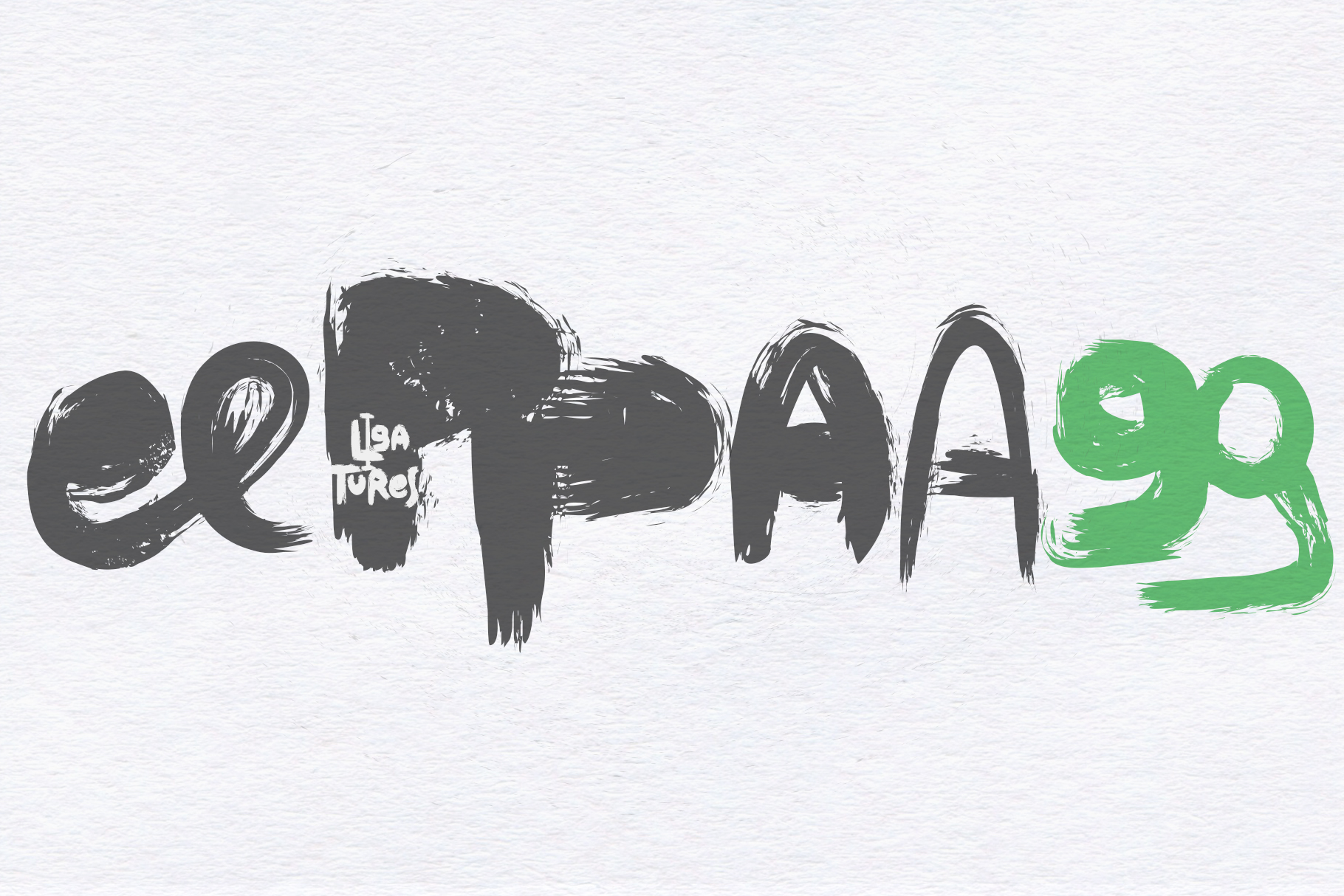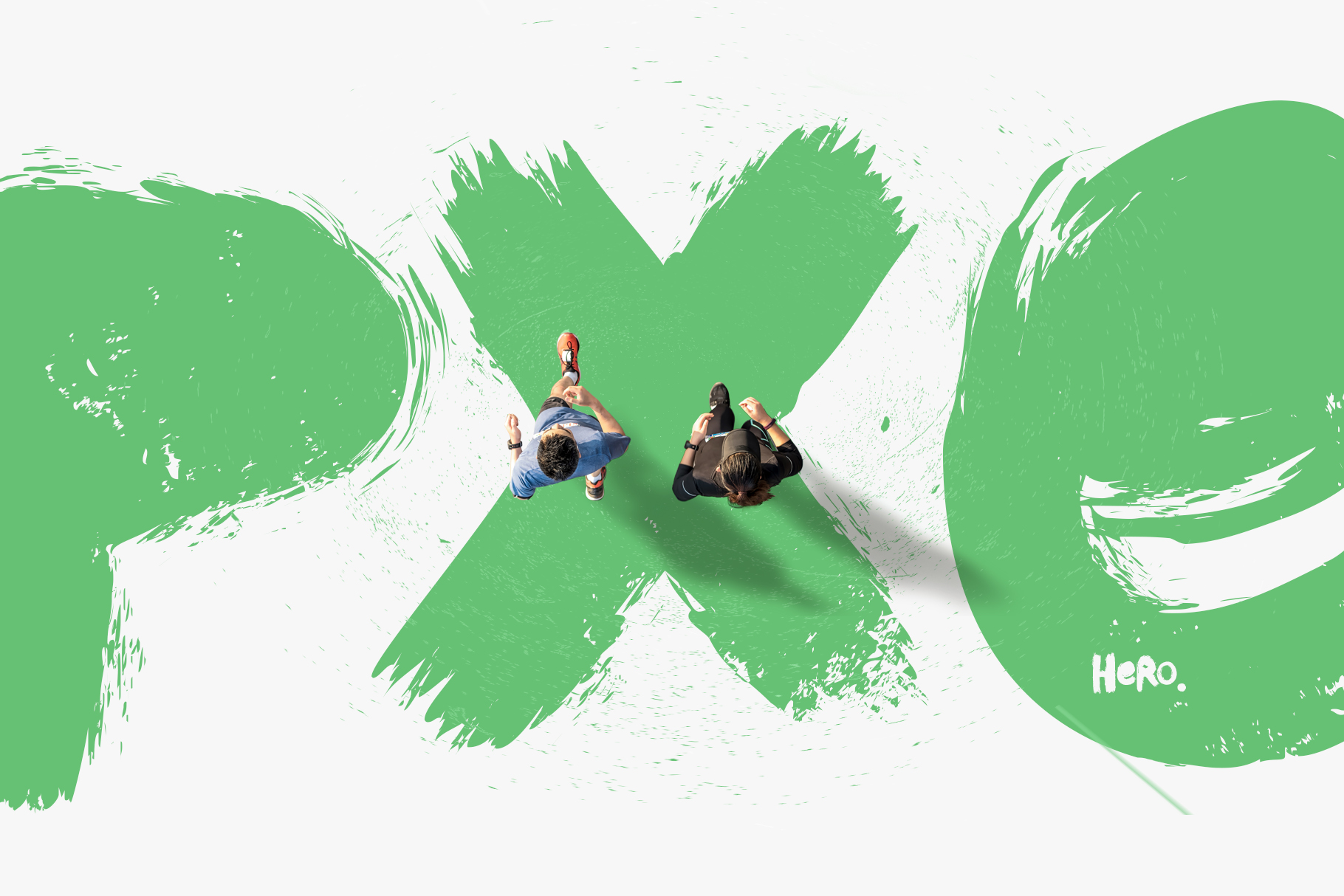
Hero Font
Hero Brush Font
This is an eccentric, handwritten font. It features high detail and natural forms. Support for ligatures allows you to create a truly unique typography that resembles lettering.